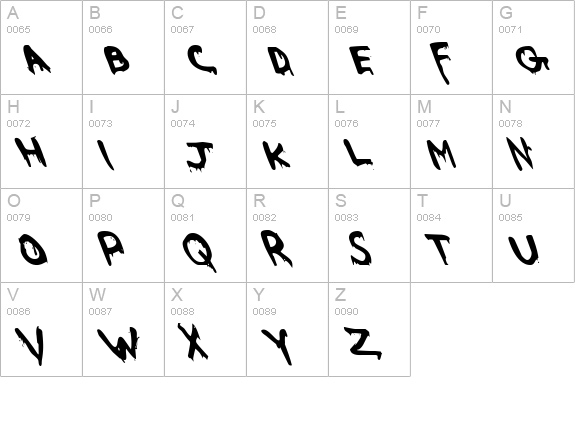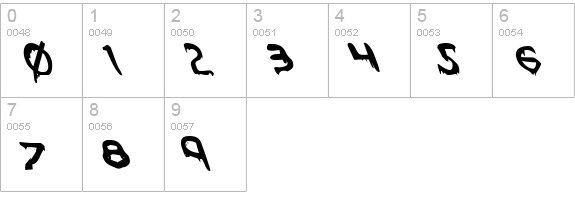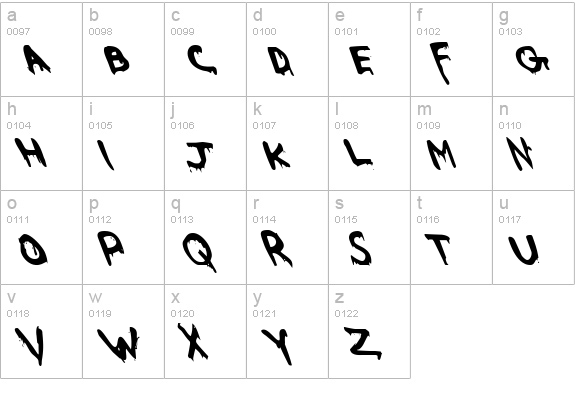
The Were-Beast Leftalic font is a striking and bold typeface that exudes a mysterious and powerful presence. With its unique blend of sharp edges and flowing curves, this font captures the essence of a creature caught between human and beast. Perfect for adding a touch of intrigue and danger to your designs, Were-Beast Leftalic is sure to make a statement. Best of all, this captivating font is available for free download at FontsMarket.com. Whether you're working on a poster, logo, or any other creative project, Were-Beast Leftalic is ready to unleash its wild energy and bring your ideas to life. Download it now and let your imagination run wild with this thrilling and captivating typeface.